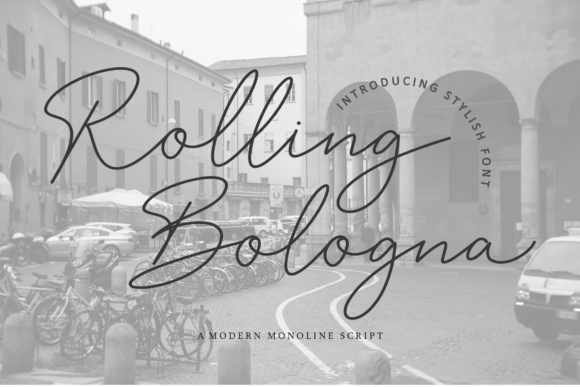
Adorn your designs with the elegance of Rolling Bologna, a script font that exudes sophistication and charm. Its clean, thin, and smooth lines bring a touch of finesse to any project, whether it's an English essay, wedding invitation, or creative branding.
With Rolling Bologna, your words will dance across the page, captivating readers with its delicate curves and flowing strokes. Its PUA encoding ensures effortless access to a world of glyphs and swashes, empowering you to unleash your creativity and add a touch of personal flair to your designs.
Imagine your English essay, transformed into a masterpiece with Rolling Bologna's graceful presence. Its elegant characters will guide the reader through your thoughts and ideas, leaving a lasting impression that lingers long after the last word.
Picture your wedding invitation, adorned with the romantic allure of Rolling Bologna. Its delicate lines will entwine your names, creating a visual harmony that reflects the beauty of your love story.
Envision your branding materials, infused with the distinctive charm of Rolling Bologna. Its stylish strokes will elevate your brand's image, attracting customers with its timeless appeal.
Rolling Bologna is more than just a font; it's a gateway to endless creative possibilities. Its versatility knows no bounds, captivating hearts in the worlds of design, art, and typography.